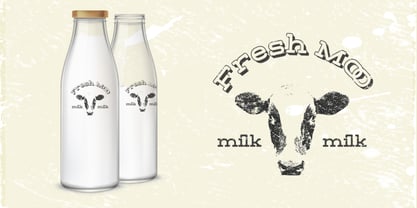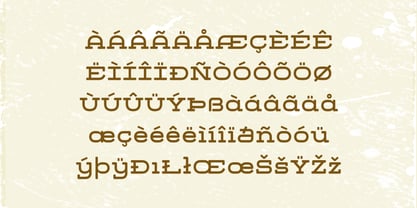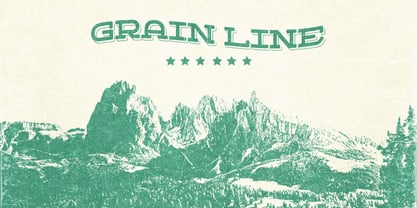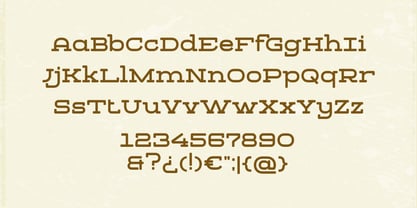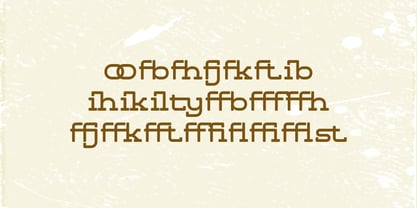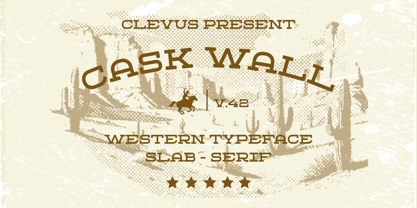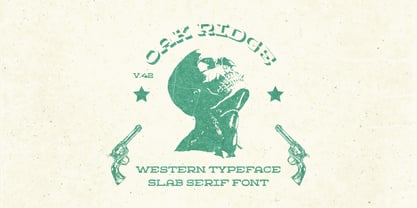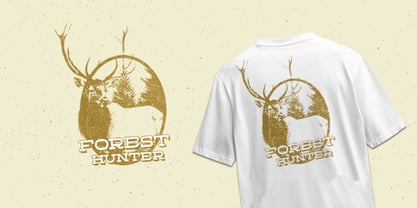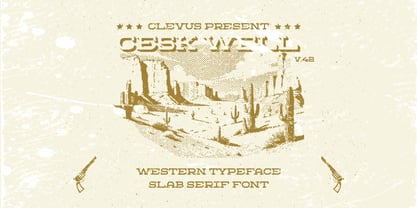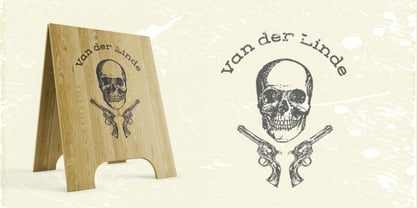
Cask Wall
by Clevus
The Cask Wall Font Family was designed by Alfinu Zafir and published by Clevus. Cask Wall contains 1 styles. More about this family
Cask Wall brings a rugged Western charm to your designs with its bold slab-serif style and vintage texture. Perfect for rustic branding, coffee shops, whiskey labels, apparel prints, and outdoor-inspired projects. Its handcrafted spirit adds authenticity and character, ensuring your design feels adventurous and timeless.
Cask Wall delivers a powerful impact with a sleek, contemporary style.
Designers: Alfinu Zafir
Foundry: Clevus